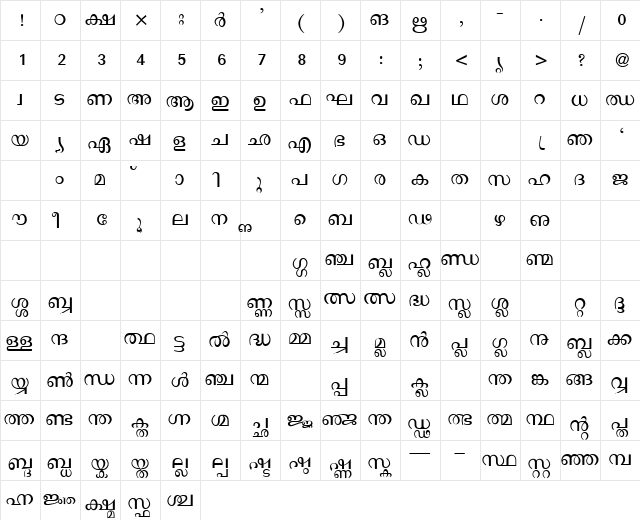
AkrutiMalMohini Normal Font Preview
AkrutiMalMohini Normal
AkrutiMalMohini Normal Font Details
Design Context for AkrutiMalMohini Typeface
AkrutiMalMohini offers clean, dependable letterforms without strong stylistic allegiance, making it a practical choice for designers who need flexibility.